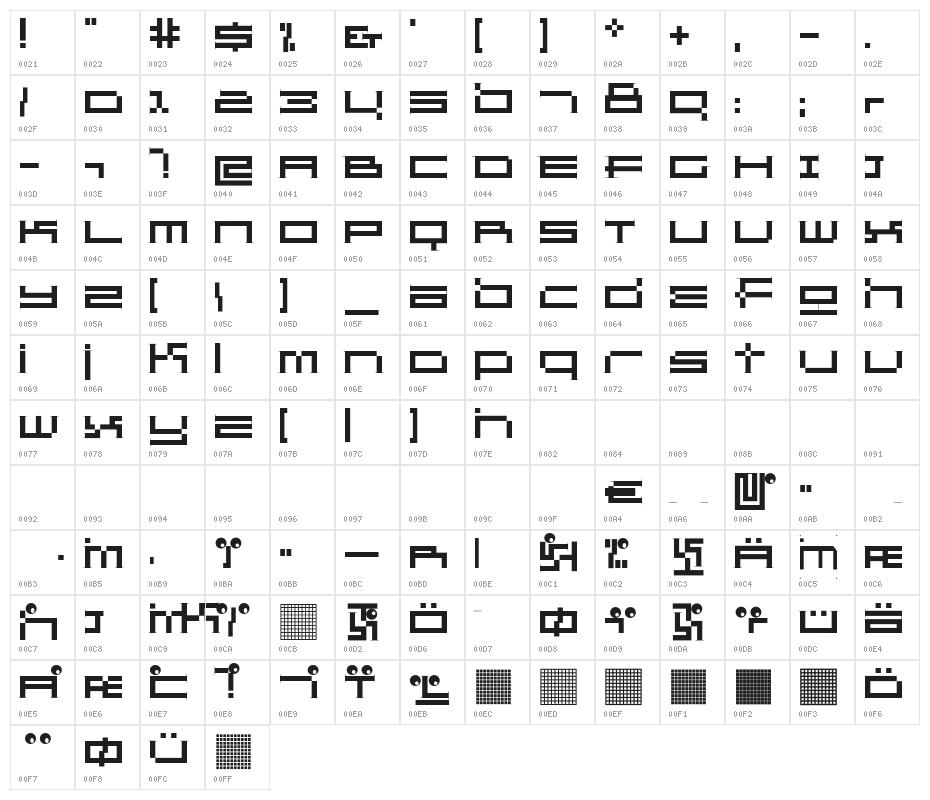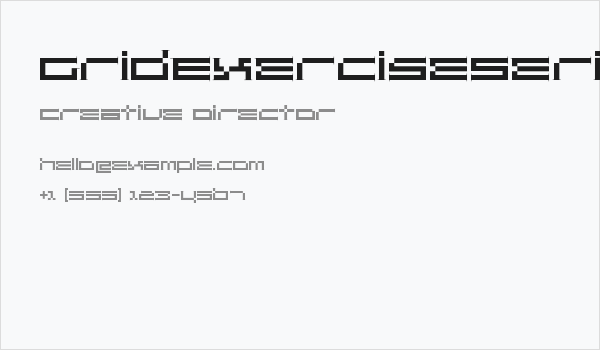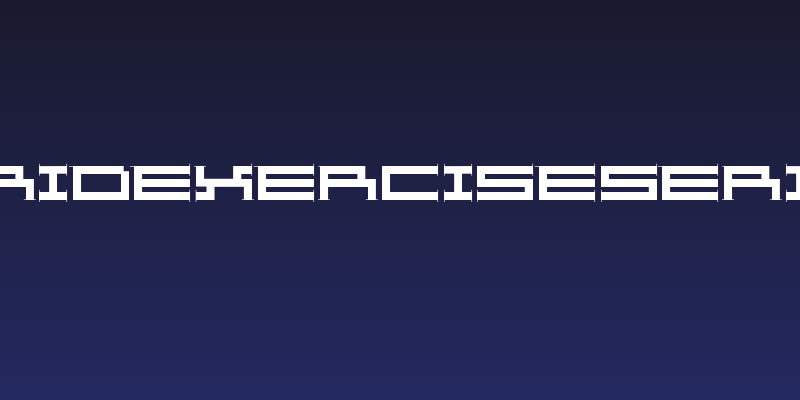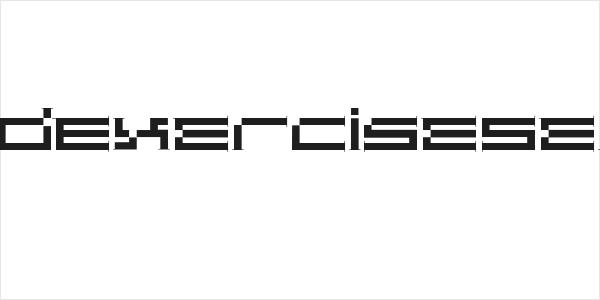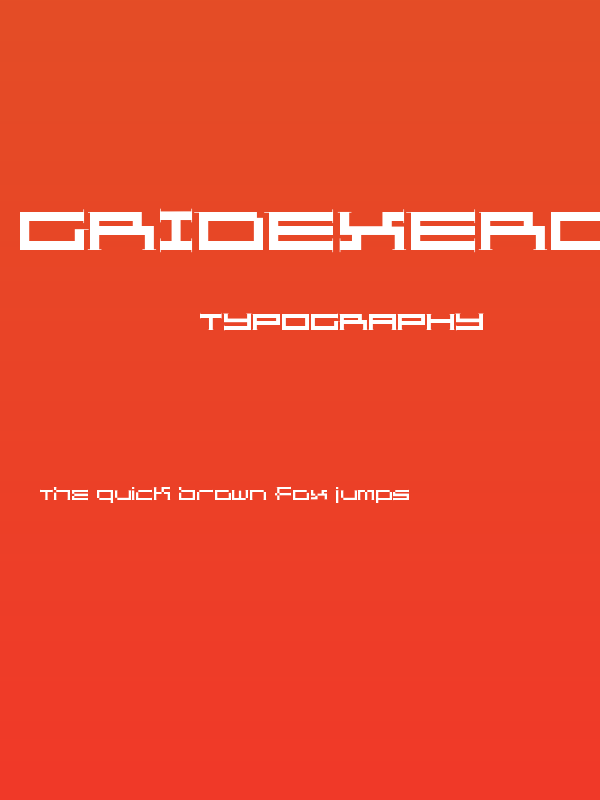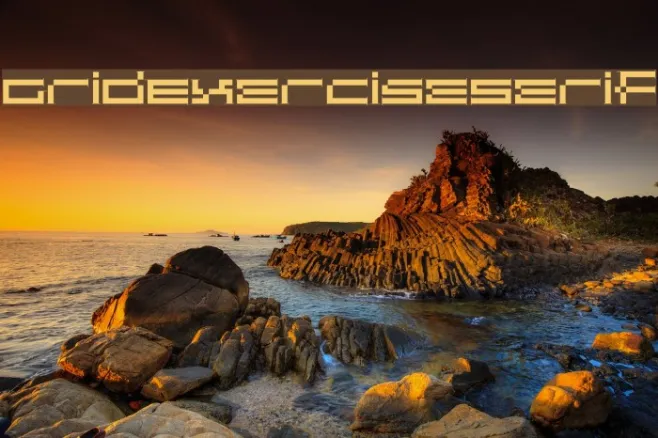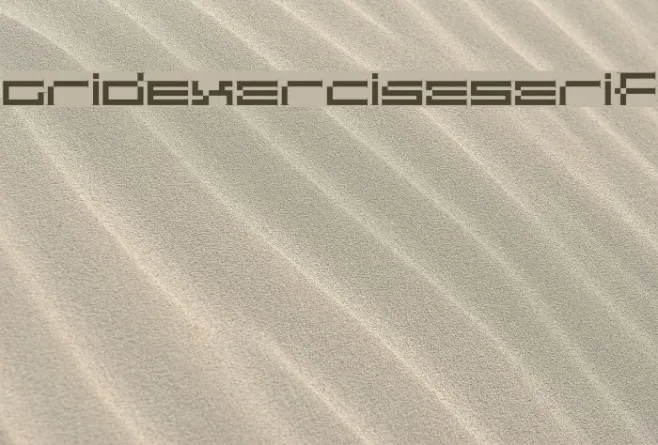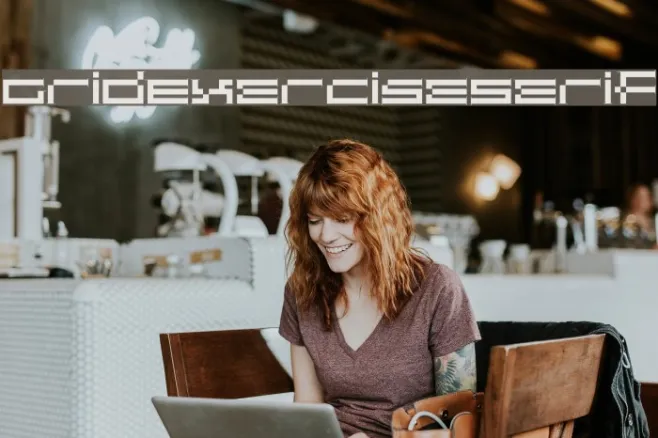
GridExerciseSerif Font
GridExerciseSerif Description
This font features a bold, geometric design with a modern, digital aesthetic. The characters are constructed with a grid-like structure, giving them a pixelated appearance reminiscent of early digital displays. The uppercase and lowercase letters maintain a consistent height, contributing to a uniform look. The numerals and special characters follow the same design principles, ensuring cohesion across all glyphs. The font's angular and blocky style makes it stand out, ideal for projects that require a futuristic or tech-inspired theme.
| Proposed Projects | Ideal for tech-themed designs, digital art projects, video game interfaces, and modern branding. |